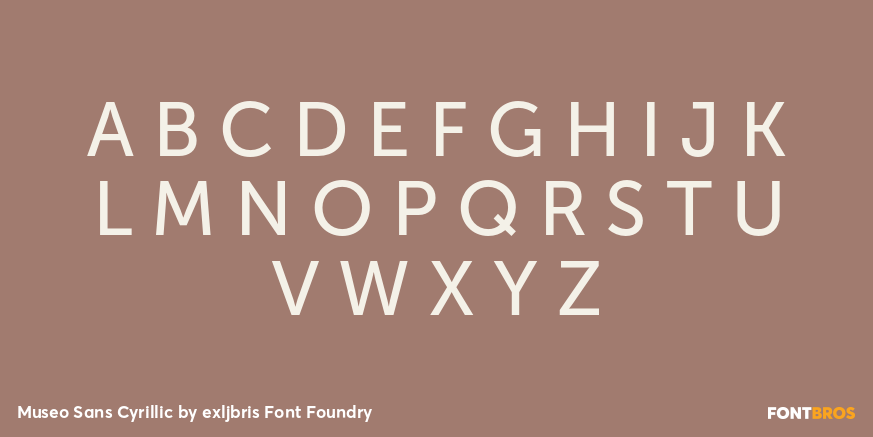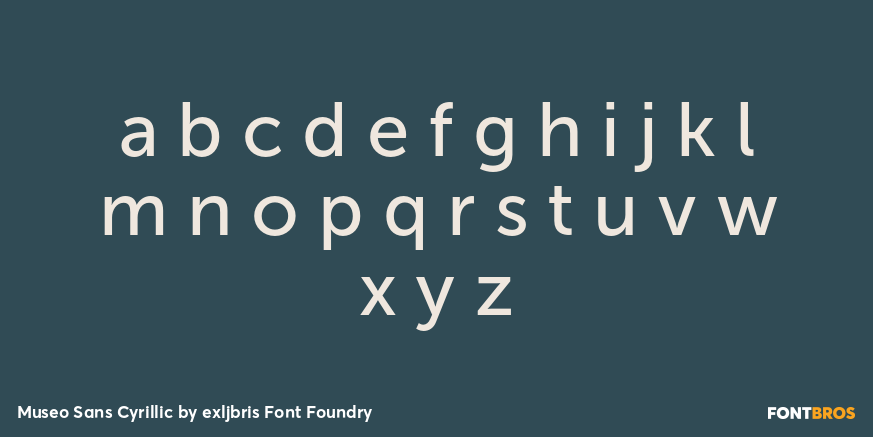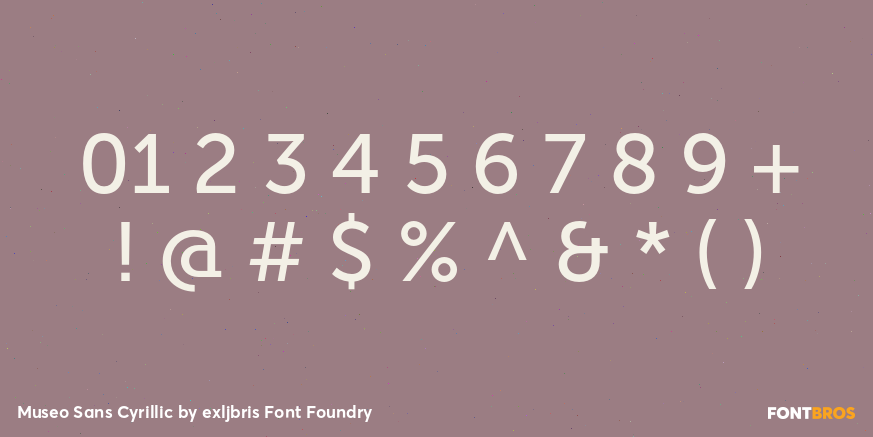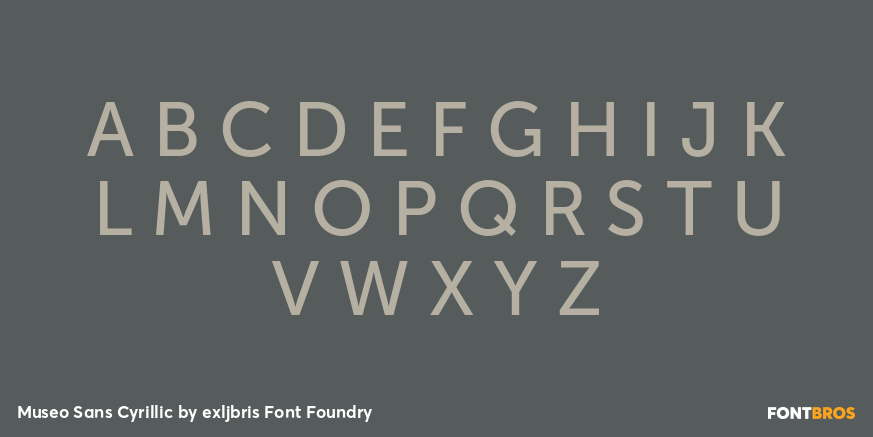
Museo Sans Cyrillic
Font Family by exljbris Font Foundry
Museo Sans Cyrillic is a modern sans serif with a clean, contemporary voice and a friendly, balanced feel. Its geometric influence is softened by humanist touches, open counters, rounded terminals, and a high x-height, giving the family a readable, approachable texture that still feels polished and professional.
With 10 styles included—100, 300, 500, 700, and 900 weights plus matching italics—this family offers a practical range for everything from streamlined branding systems to editorial layouts, headlines, signage, and corporate design. The sturdy construction and open apertures help it stay clear across sizes, while the heavier weights bring confident display impact.
Published by exljbris Font Foundry, this Cyrillic-ready family is a versatile choice when you want modern clarity with a warmer edge than a strictly mechanical sans.